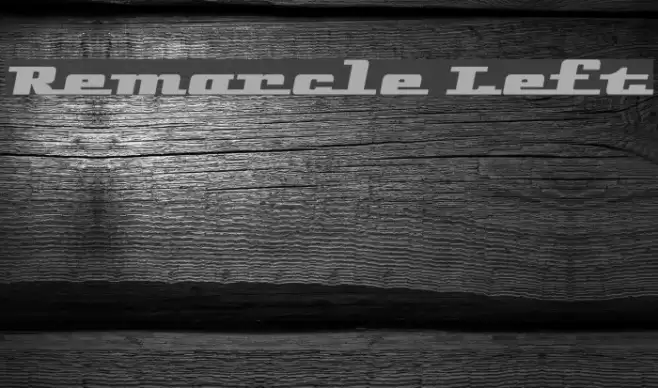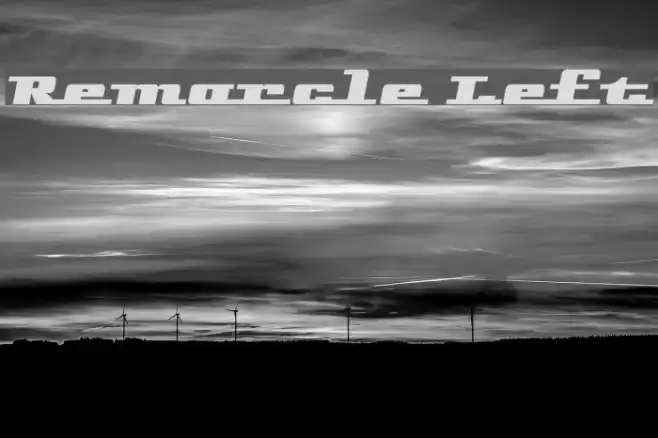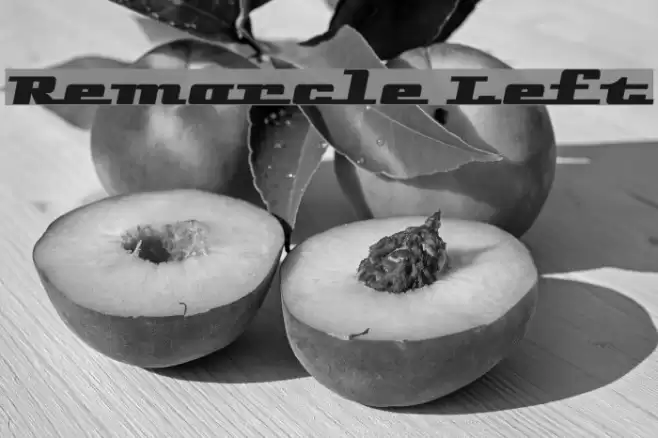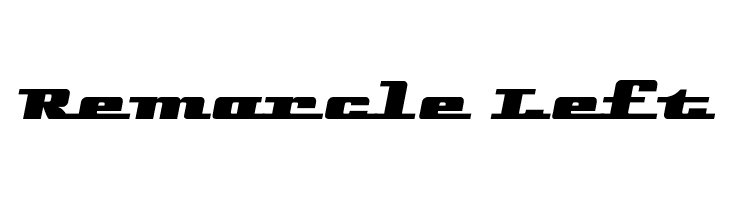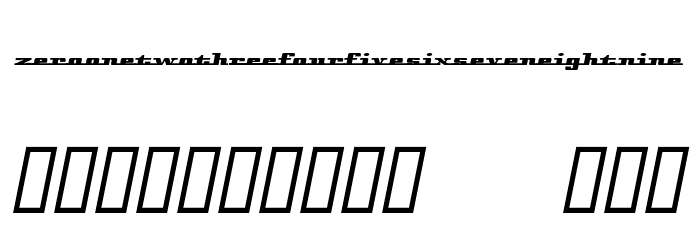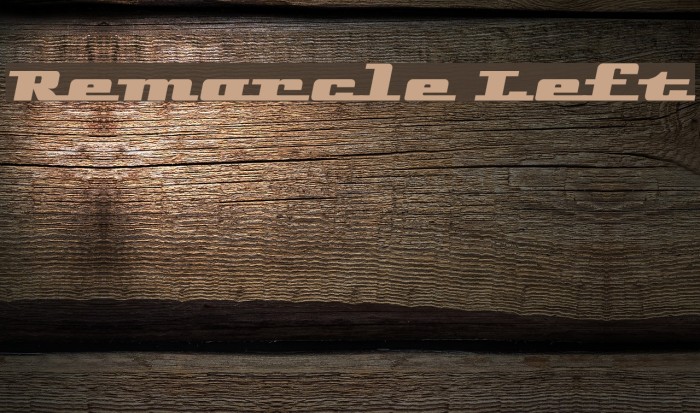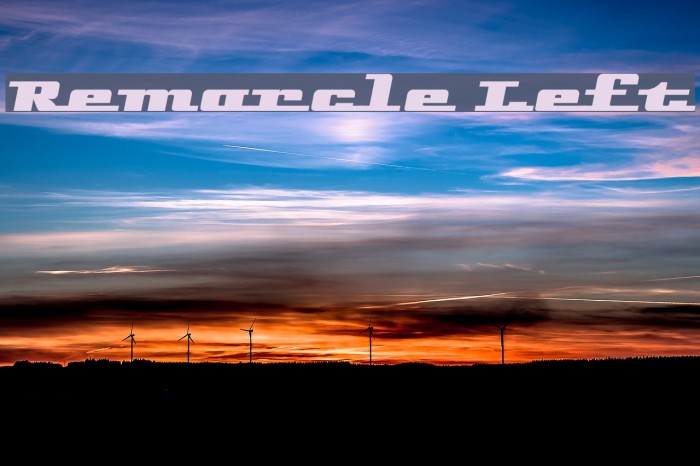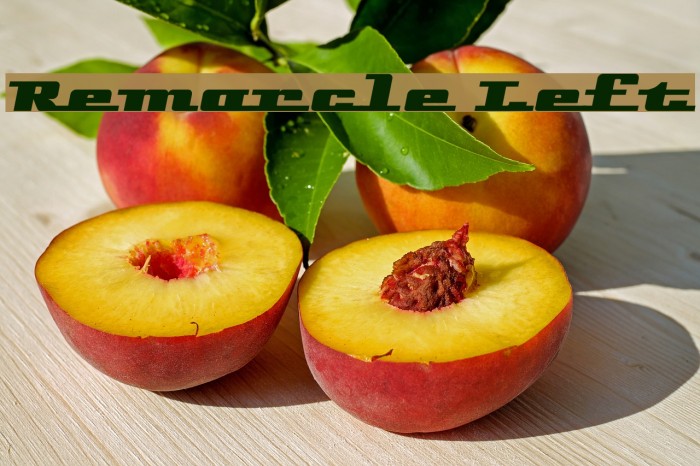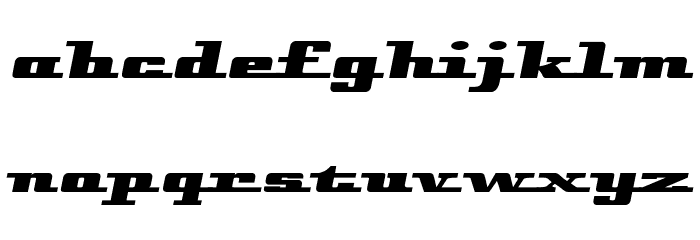
Remarcle Left Font
Remarcle Left Description
This font features a bold and dynamic style with a strong presence. The uppercase letters have a distinct angular design, giving them a futuristic and edgy appearance. The lowercase letters maintain a cohesive look with slightly less angularity, providing a balanced contrast. Numbers are consistent with the overall style, maintaining the bold and angular characteristics. Special characters are uniquely designed, adding to the font's distinctiveness. The font's overall appearance is modern and assertive, making it suitable for attention-grabbing designs.
A bold, angular font with a modern and dynamic style from Retro fonts.
- Proposed Projects: Ideal for sports branding, futuristic designs, video game covers, and dynamic posters.